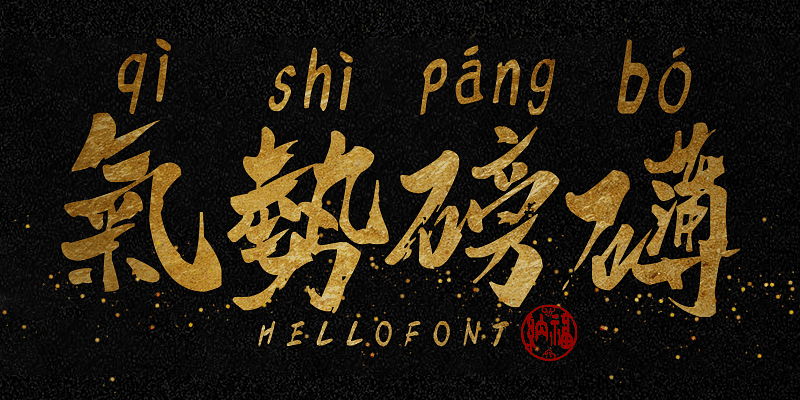
HelloFont ID Yi Zhi Pin Yin Ti Font is a charming and artistic typeface that beautifully merges traditional Chinese characters with a whimsical, hand-drawn aesthetic. Its unique and playful letterforms give it a lively, personal feel, making it an excellent choice for a variety of projects that need a touch of character and cultural flair. This font is perfect for children's book titles, creative branding, social media posts, and product packaging for unique, artisanal goods. It excels at creating a sense of joy, authenticity, and handmade artistry. The HelloFont ID Yi Zhi Pin Yin Ti Font Free Download is an excellent way to see its beautiful effect on your personal design work.
What makes HelloFont ID Yi Zhi Pin Yin Ti Font so exciting is its remarkable ability to blend a classic, educational format with a modern, artistic touch. The font’s strokes have a natural, brush-like quality that gives it a dynamic and expressive character, while the overall structure maintains a clean and readable form. This duality allows it to be used in both professional and more creative contexts, adding a layer of authenticity and style that is hard to find in other typefaces. Its distinctive look ensures that any design using it will stand out, conveying a message of quality and thoughtful craftsmanship.
The HelloFont ID Yi Zhi Pin Yin Ti Font family is designed to offer maximum versatility for your creative needs. It includes a variety of styles that maintain the same artistic integrity, such as HelloFont ID Yi Zhi Pin Yin Ti Regular and HelloFont ID Yi Zhi Pin Yin Ti Bold. This range allows you to create a dynamic typographic hierarchy, using different styles to add depth and emphasis to your designs. The consistent aesthetic across the family ensures that every element of your layout, from main titles to small details, is unified and professional.
This font is more than just a typeface; it is a design asset that can help you define your brand's personality and communicate your vision effectively. Its artistic and elegant nature makes it a valuable addition to any designer's toolkit.